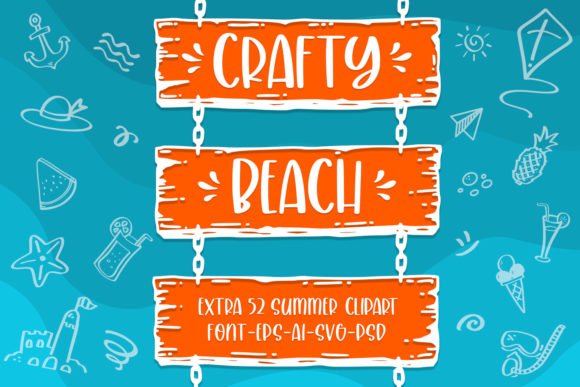
Introduction to Crafty Beach Font
Crafty Beach is a casual and cute handwritten font.
It brings cute extra doodles for your summer crafting projects and it will elevate a wide range of design projects to the highest level, be it branding, headings, wedding designs, invitations, signatures, logos, labels, and much more .
Key Features of Crafty Beach Font
Why Choose Crafty Beach Font?
Crafty Beach Font offers exceptional quality and versatility, making it a valuable addition to your design toolkit. Whether you’re creating for personal projects or commercial use, Crafty Beach Font delivers professional results.